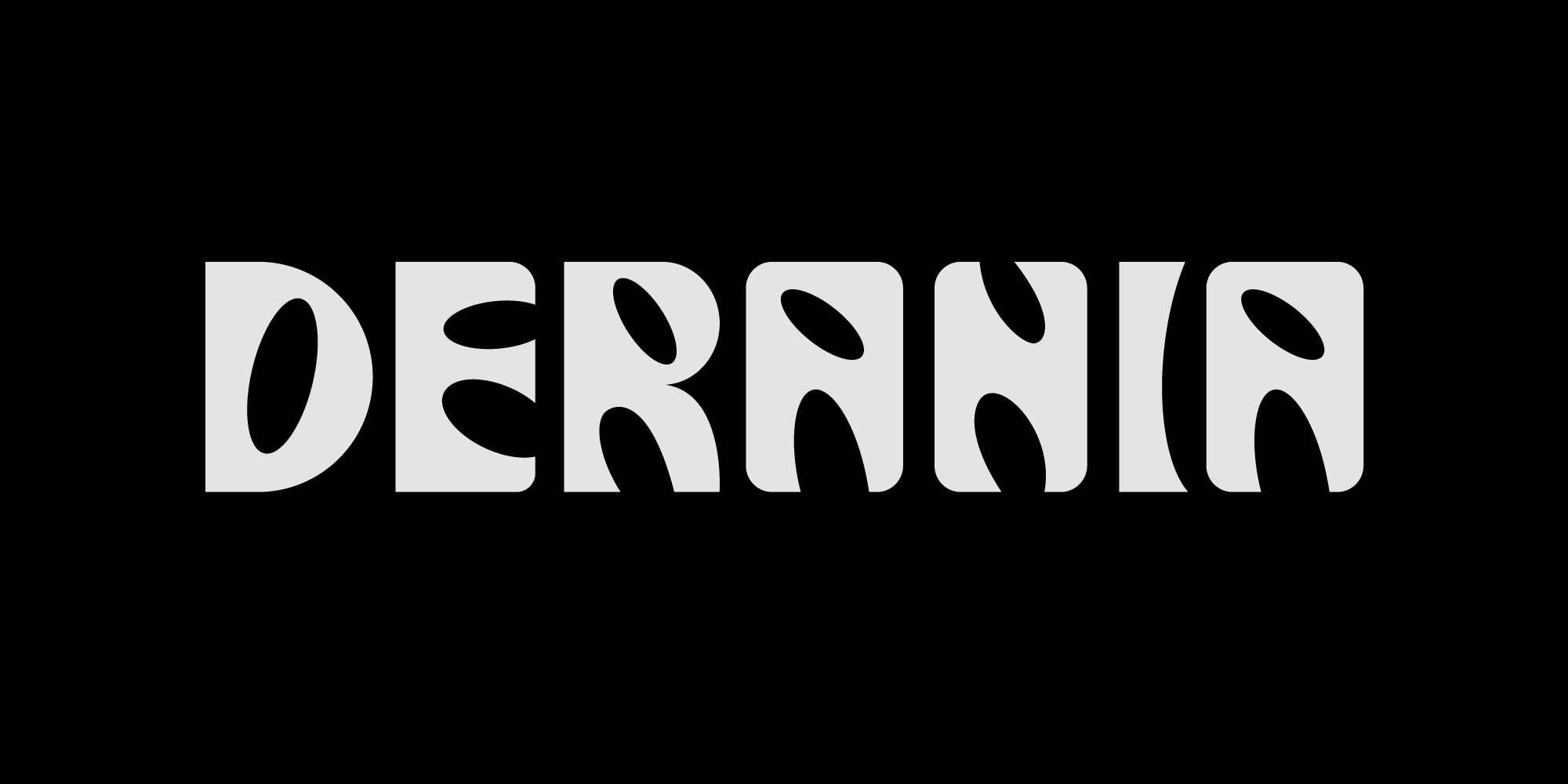
Derania Font is perfect for elegant branding, sophisticated stationery, luxury packaging, refined signage, upscale corporate communications, graceful wedding materials, premium advertising campaigns, and distinguished display typography.
What makes Derania Font exciting is its sophisticated elegant character that embodies refined beauty and contemporary luxury through graceful letterforms and upscale appeal. This distinguished typeface features elegant construction, refined details, and sophisticated personality that captures the essence of modern elegance and premium quality, making it ideal for projects seeking to communicate luxury, sophistication, and refined taste with authentic elegant appeal and contemporary refinement.
The Derania Font family includes Light, Regular, Medium, and Bold weights, each available in upright and italic variations, providing comprehensive elegant solutions while preserving the characteristic refined grace and sophisticated appeal.
Derania Font Free Download offers designers access to a premium typeface that perfectly captures the essence of contemporary elegance and sophisticated luxury. This refined font brings authentic elegant aesthetics to modern projects, making it essential for luxury brands, upscale services, and sophisticated companies targeting audiences who appreciate refined design quality and elegant presentation. The font's elegant construction and sophisticated details ensure immediate recognition of luxury and refinement while its distinctive character creates emotional connections among individuals seeking elegant experiences and sophisticated lifestyle choices. Whether designing luxury product packaging, elegant brand campaigns, or sophisticated corporate communications, this font delivers the elegant authenticity and refined sophistication that discerning luxury audiences expect. Its luxury foundation and elegant symbolism make it indispensable for projects celebrating sophisticated lifestyle, contemporary elegance, and the timeless appeal of refined beauty, ensuring communications resonate with audiences who value the elegant grace, sophisticated refinement, and luxury quality that define authentic elegant experiences and refined lifestyle choices across diverse luxury and sophisticated applications.